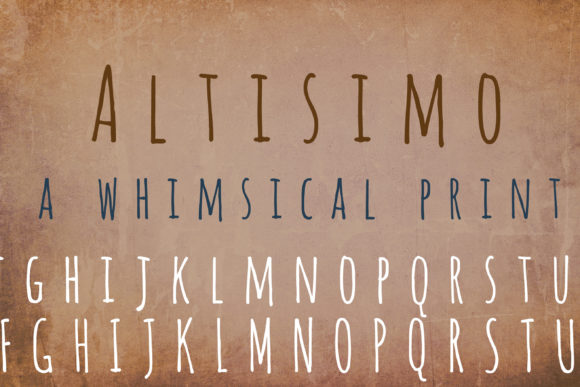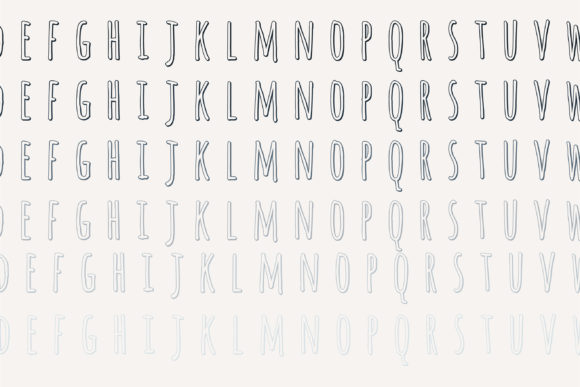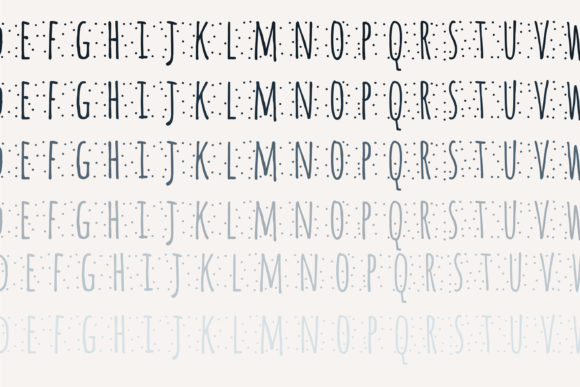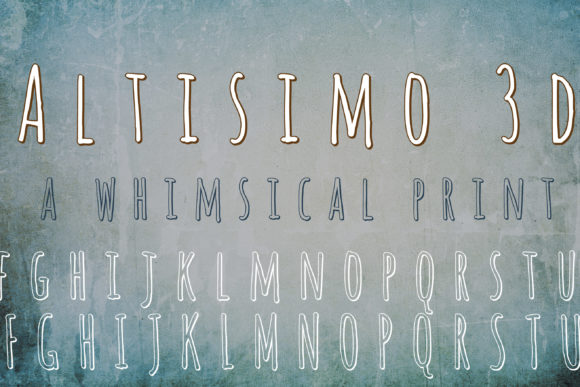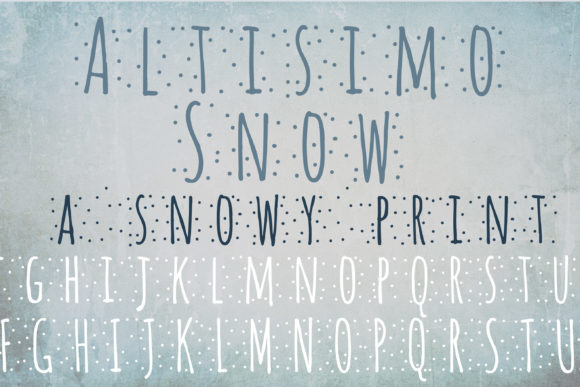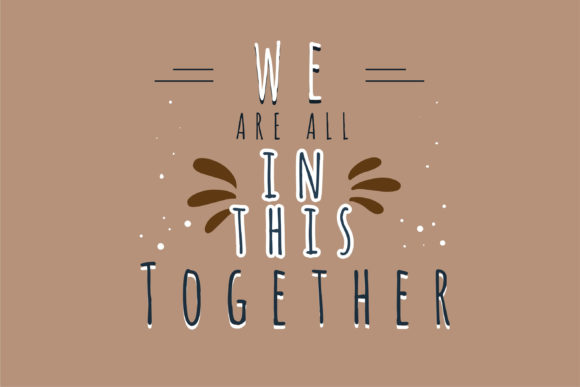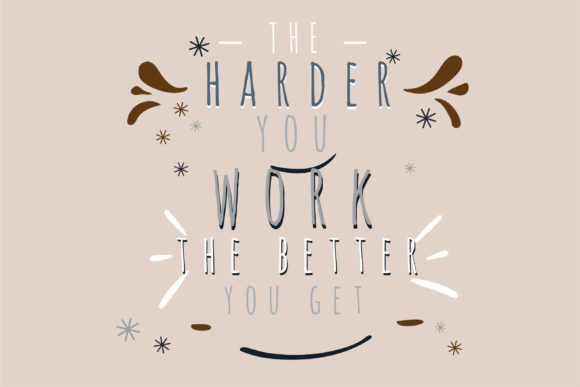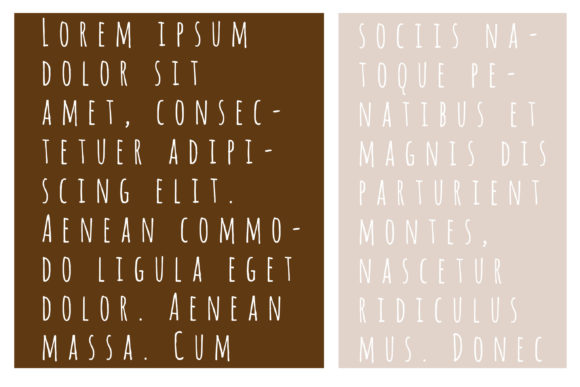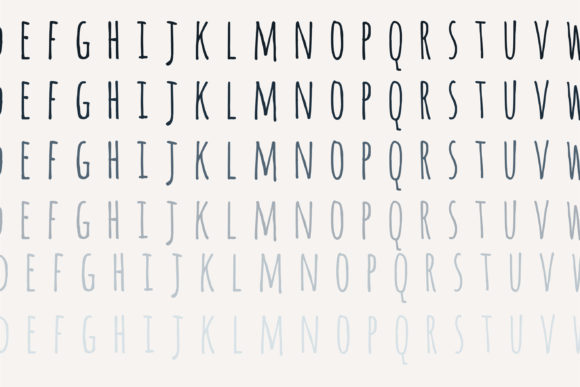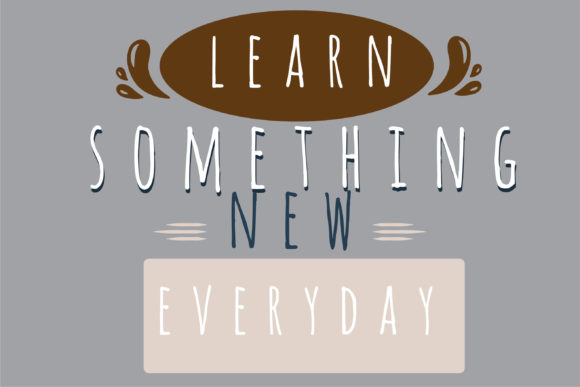
ZP Altisimo Font
About ZP Altisimo Font
“ZP Altisimo Font” is a simple hand-crafted print font characterized by its extra-wide spacing throughout the characters. Additionally, the font includes 3D and snowy letter variations, providing you with the tools to craft truly spectacular and captivating designs.
The font’s extra-wide spacing creates a distinct and open feel in your designs, offering a sense of expansiveness and clarity. Whether you’re working on posters, banners, headlines, or any other project that benefits from a spacious layout, “ZP Altisimo Font” has the ability to enhance your work with its unique and artistically crafted aesthetic.
The inclusion of 3D and snowy letter variations adds depth and texture to your designs. These features allow you to experiment creatively, enabling you to craft designs that are truly remarkable and stand out from the ordinary.
In summary, “ZP Altisimo Font” is more than just a font—it’s a creative tool that empowers you to craft visually captivating and extraordinary designs. Its extra-wide spacing, along with the 3D and snowy letters, make it a versatile asset for designers aiming to create designs that are visually stunning and leave a lasting impression.